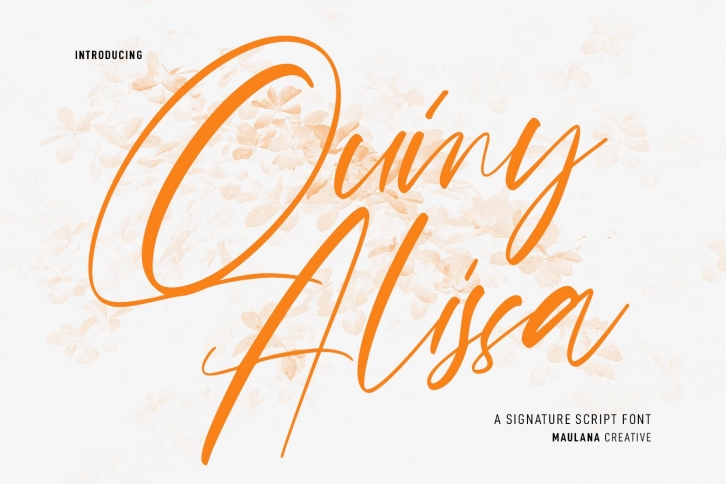
Quiny Alissa is an elegant and expressive script font. It has a classy, elegant, and modern look that can be used for logos, branding, invitations, stationery, wedding designs, social media posts, and much more!